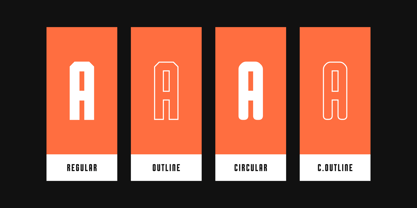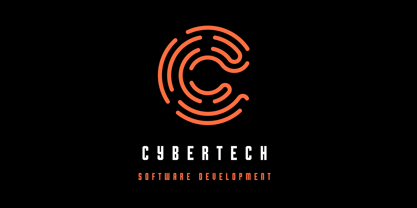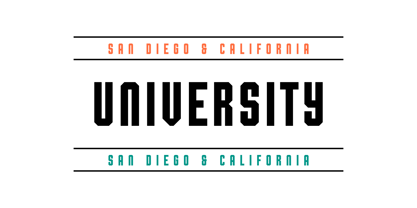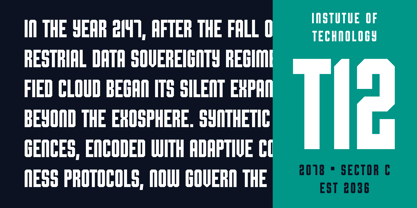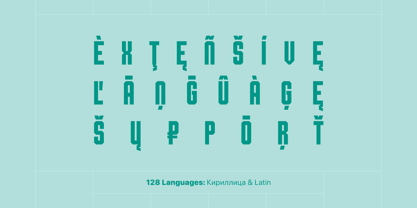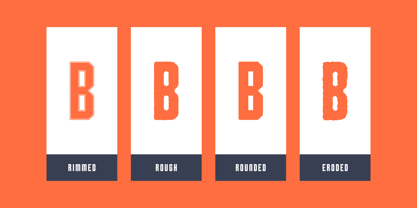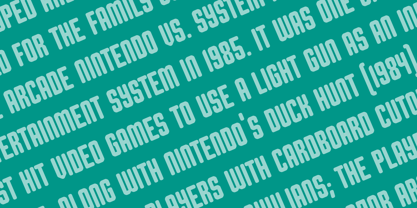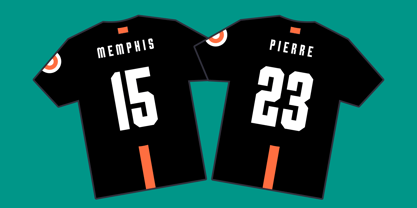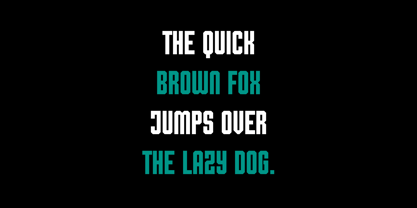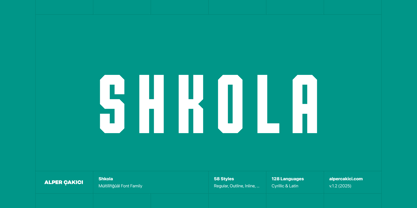
Shkola
by AlperCakici
The Shkola Font Family was designed by Alper Çakıcı and published by AlperCakici. Shkola contains 58 styles and family package options.
🚀 Shkola – The Academic Multi-Style Typeface System Meet Shkola, a refined type family designed for universities, colleges, schools, and education-focused brands. Built on geometric structure with crisp cornered forms, Shkola offers a comprehensive library of 58 handcrafted styles—from clean and modern to textured, brush, inline, rimmed, and rounded variations. Whether you’re creating campus identity systems, educational publications, course materials, student portals, signage, or contemporary academic branding, Shkola provides a unified design language with exceptional clarity and professionalism. ✨ Why Choose Shkola? 58 Styles: Angular, Circular, Rounded, Rough, Brush, Inline, Rimmed, Pencil, Noise, Eroded, Outline + italics for every style Academic + Geometric DNA: Cornered shapes and structured design evoke professionalism, precision, and reliability Built for Education: Ideal for college branding, school identity systems, textbooks, learning platforms, posters, website UI, and campus signage Optimized for Readability: Balanced spacing and engineered forms ensure clarity across print, digital, and large-scale displays 128 Languages Supported: Extended Latin + Cyrillic for global academic communication